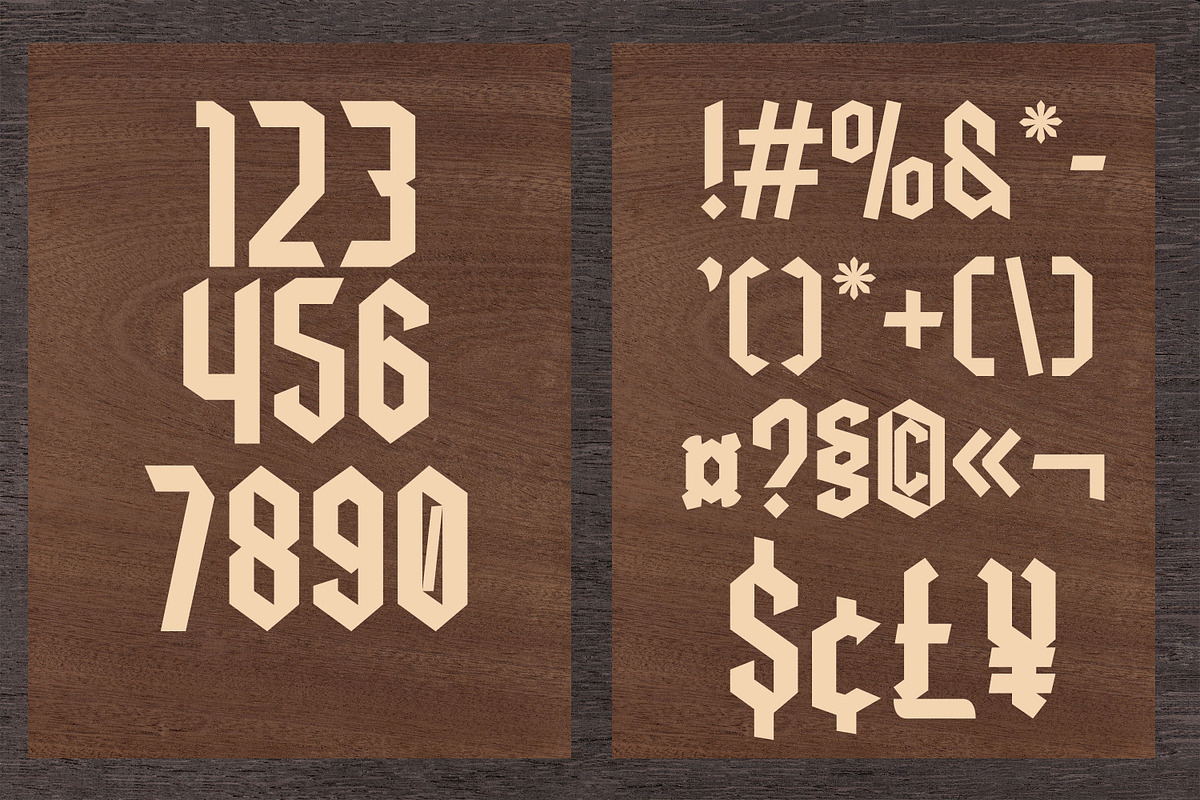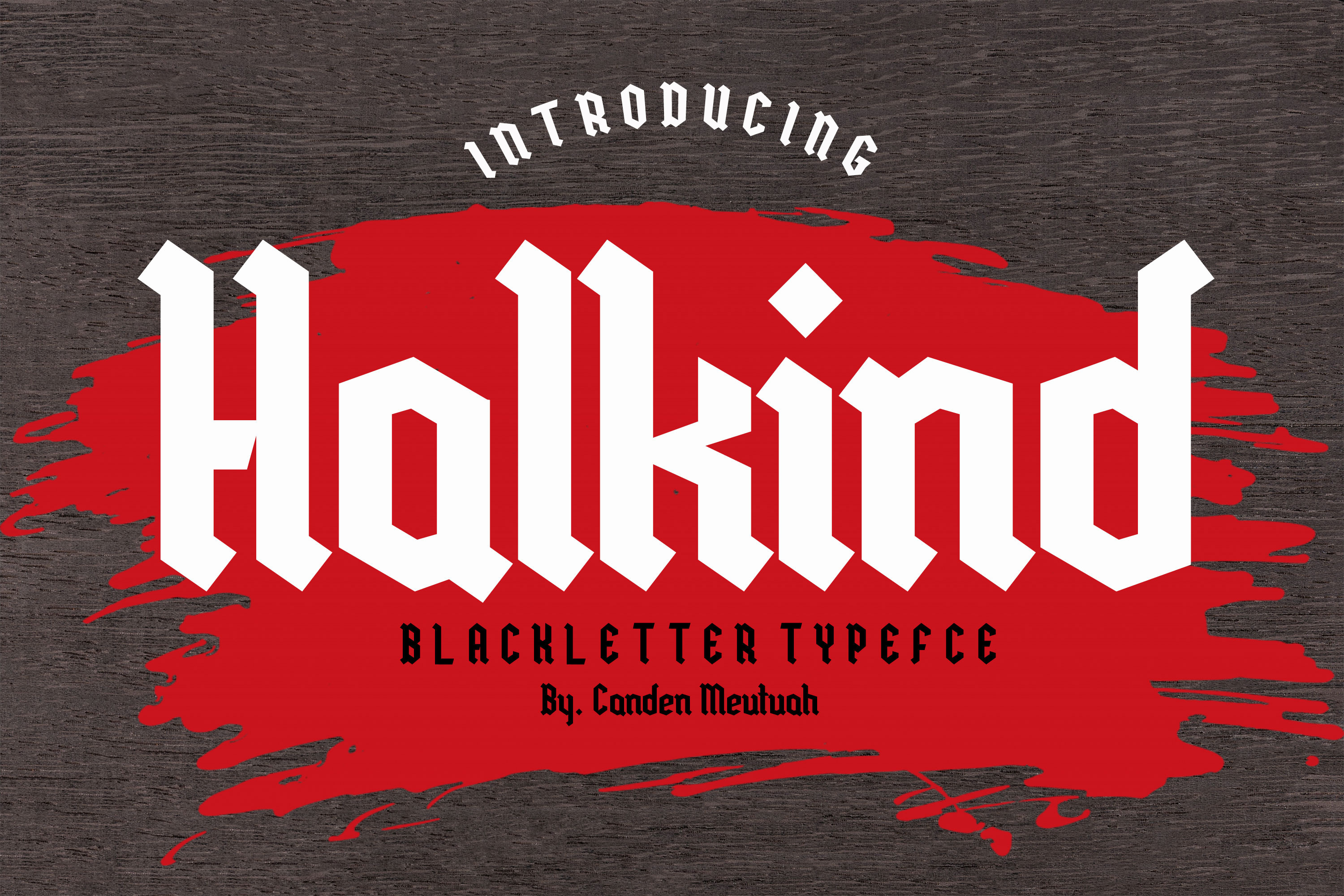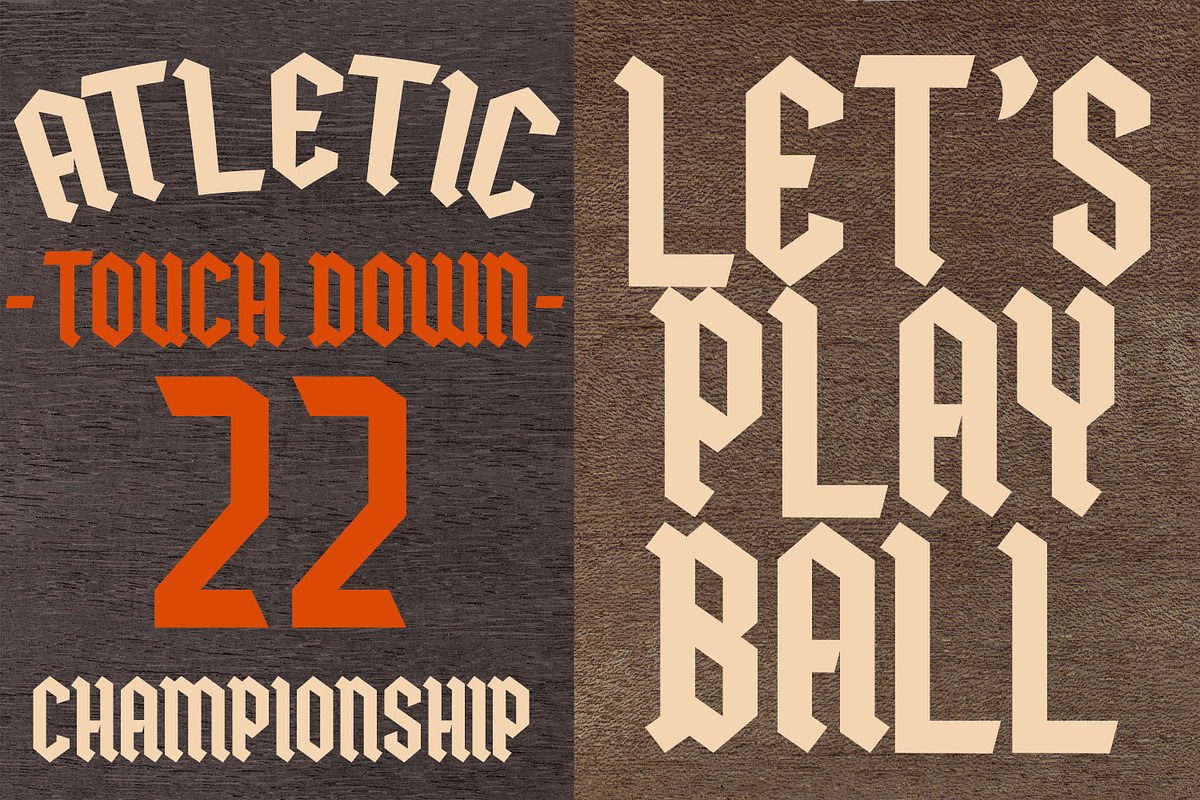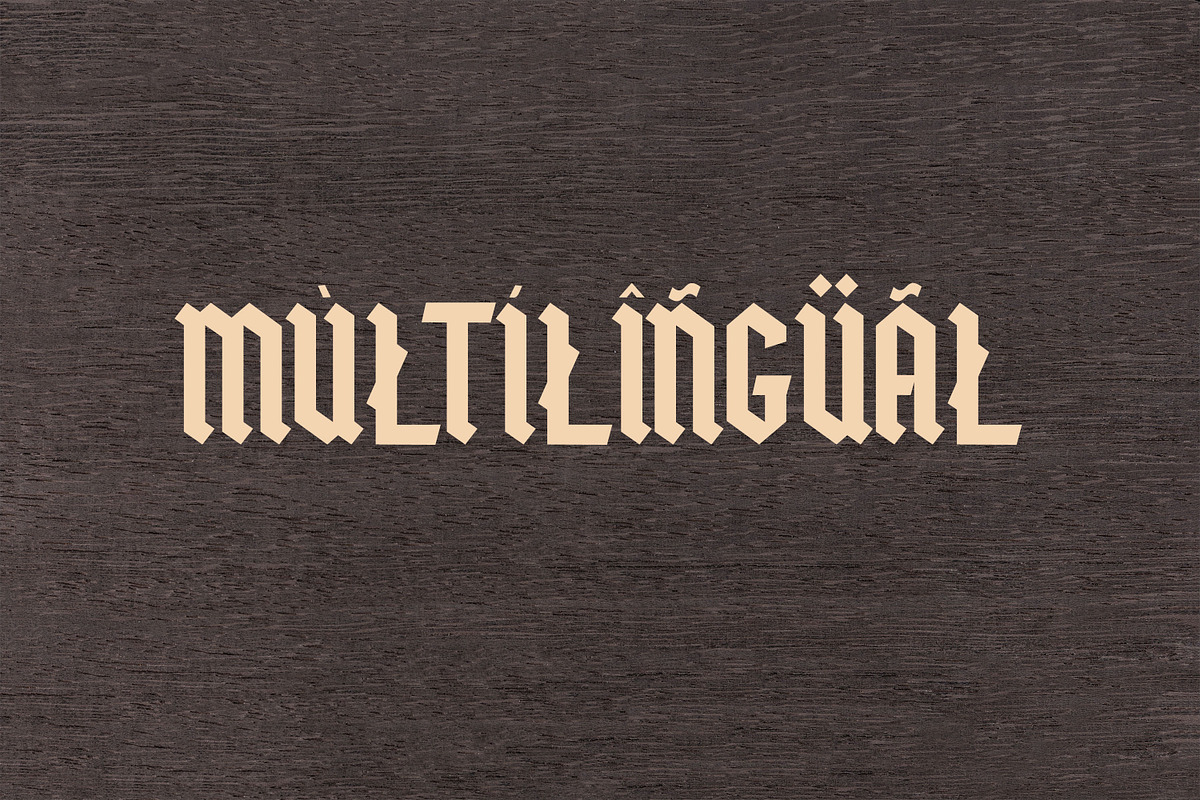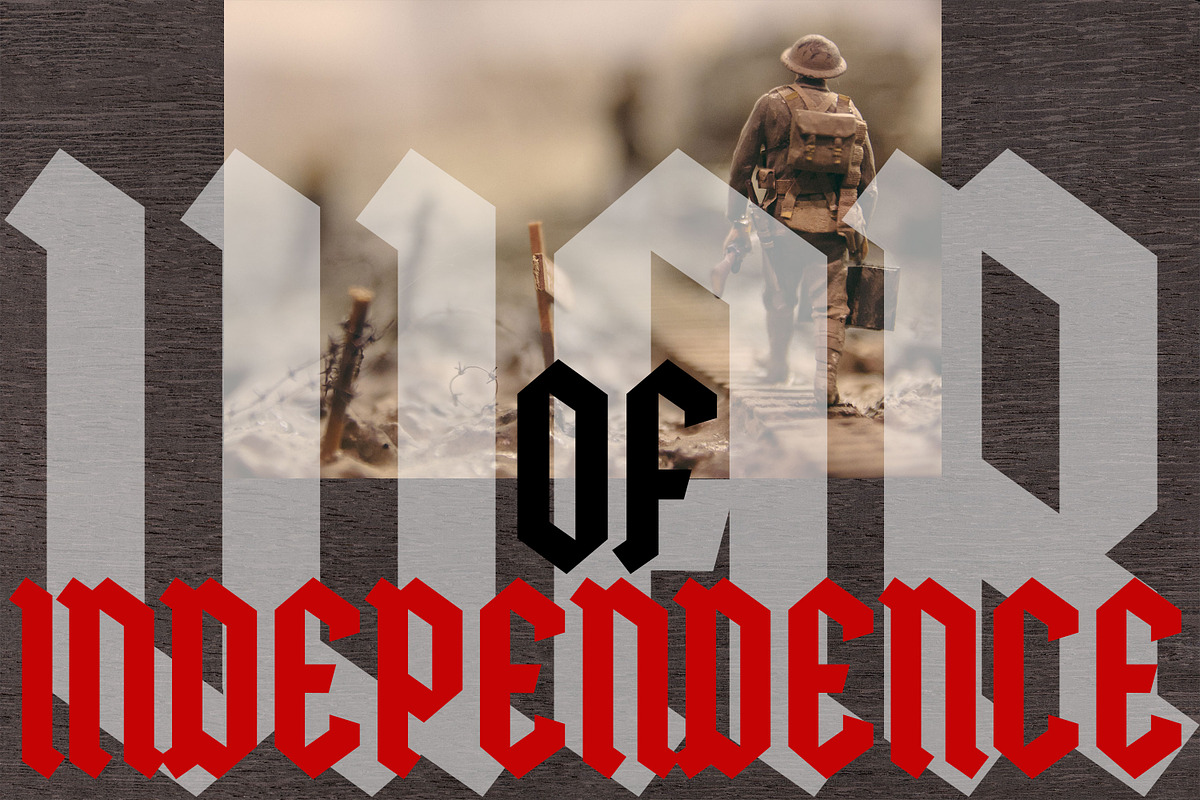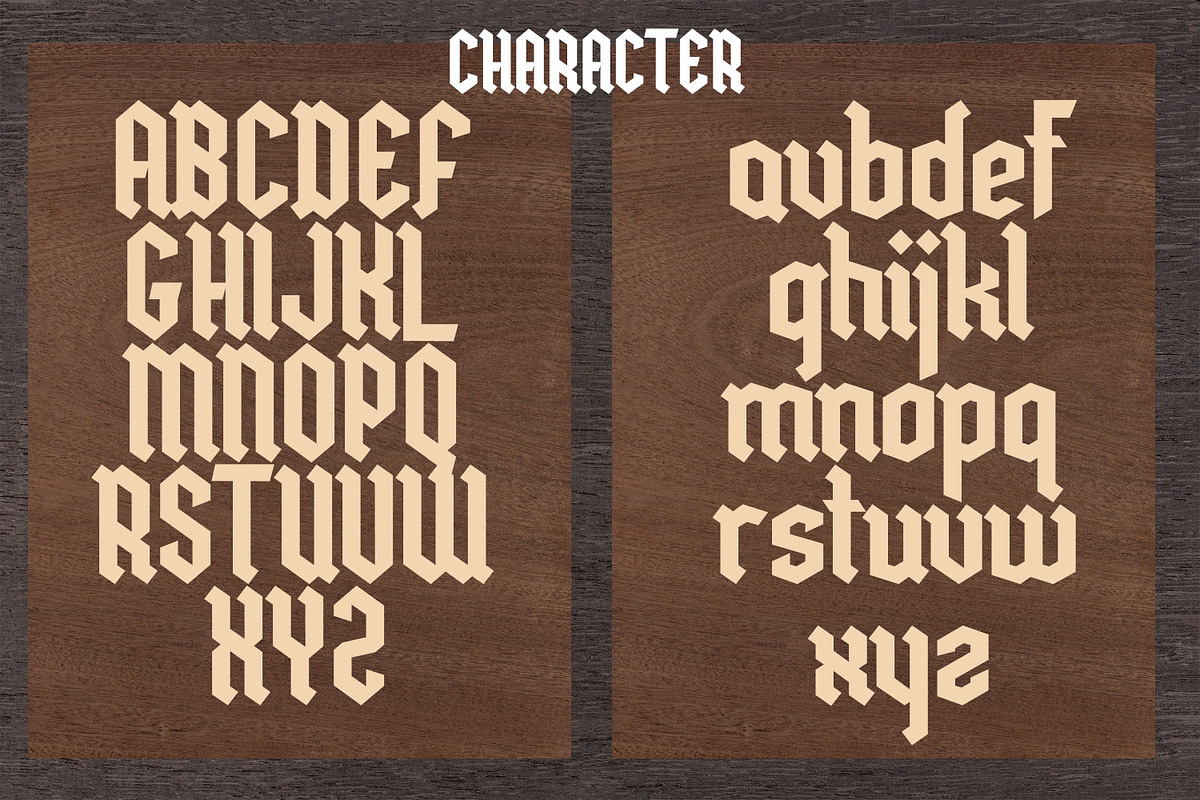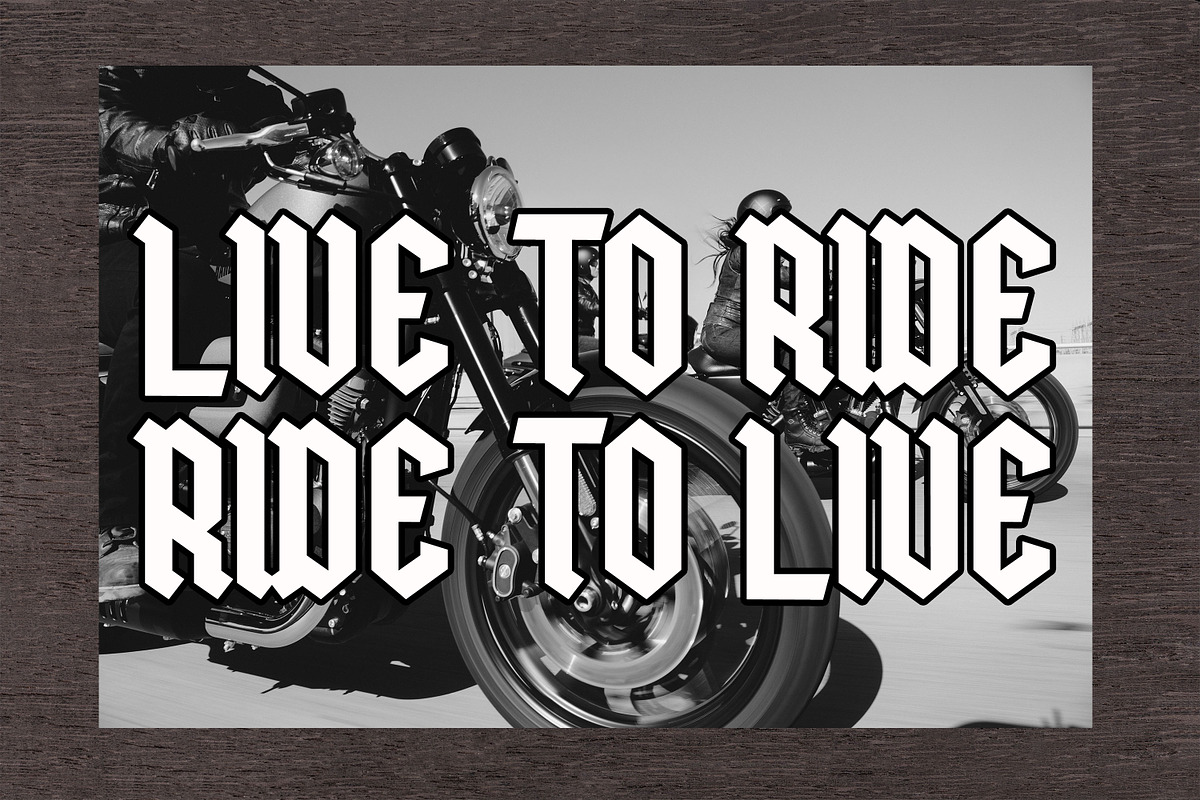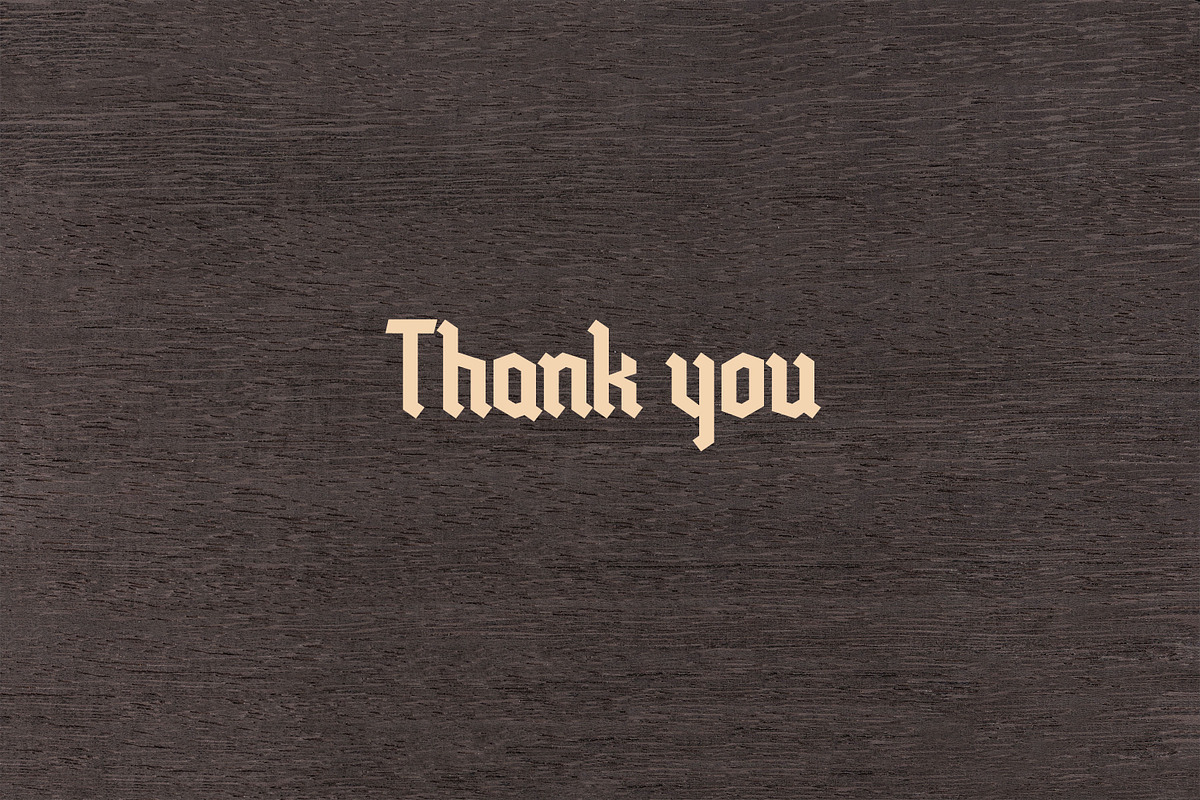
Halkind Blackletter Font
Halkind Blackletter Font, This font is Perfect for branding projects, logo design, clothing branding, packaging, magazine titles, advertisements, t-shirts, postcards, editorials, magazine headlines, product packaging, and displaying masculine and feminine qualities.
this is equipped with full uppercase, lowercase, numbers and punctuation + Multi-language support